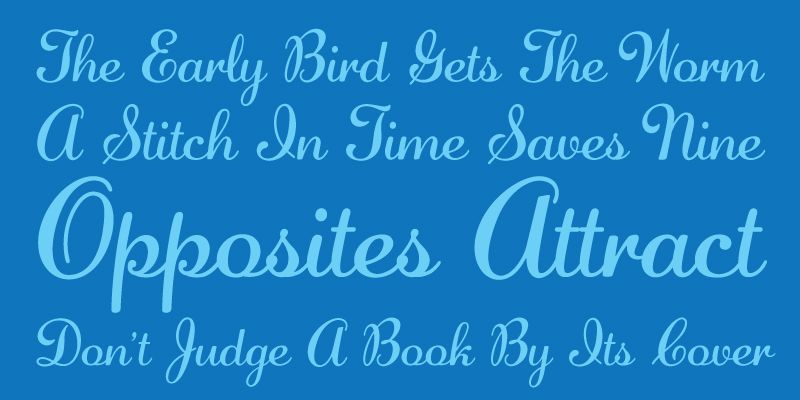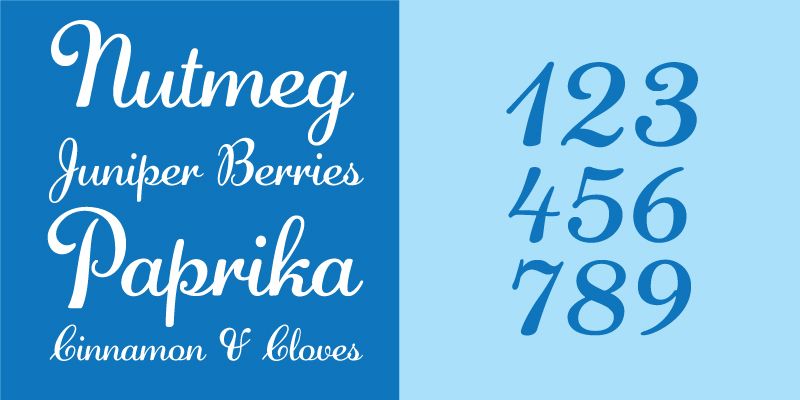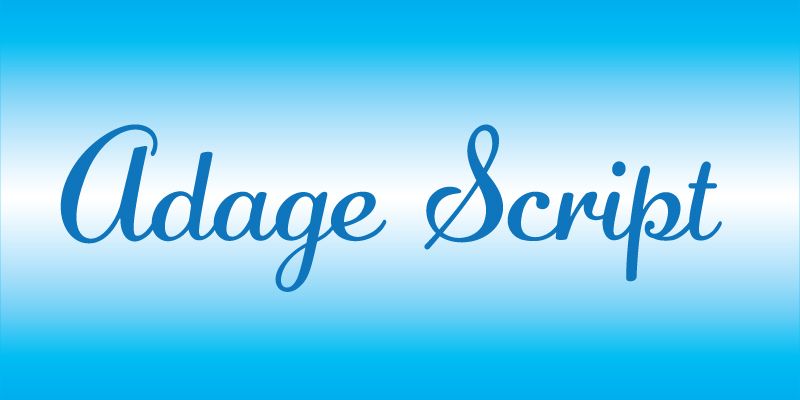
Adage Script is a classy yet down-to-earth script typeface that is warm, feminine, and dependable. Digitally revived from an older photo-typositing face, this font adds charm to any design.